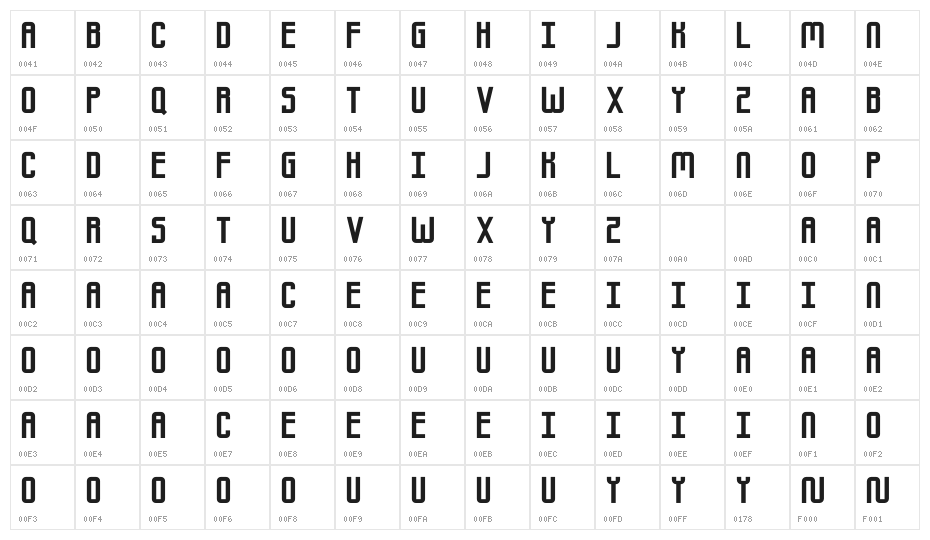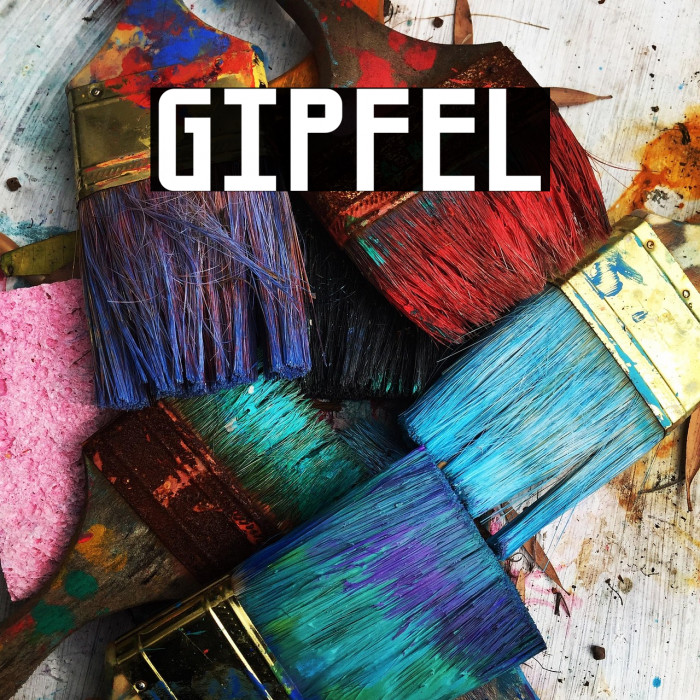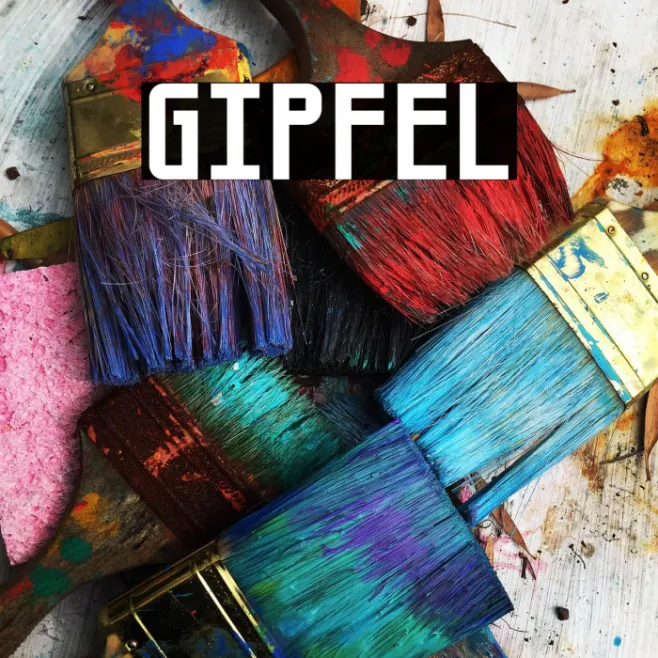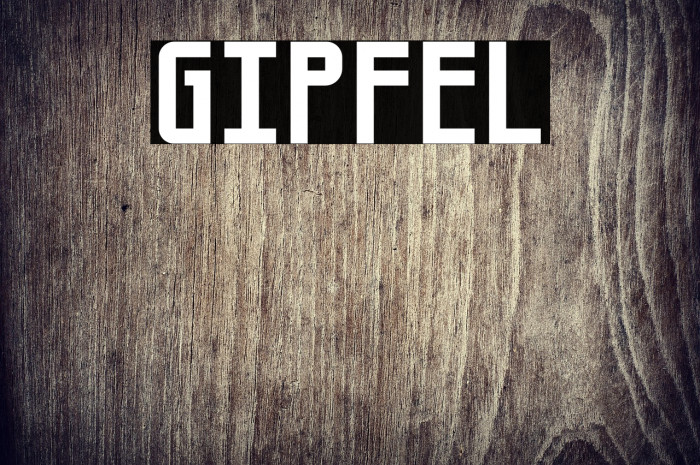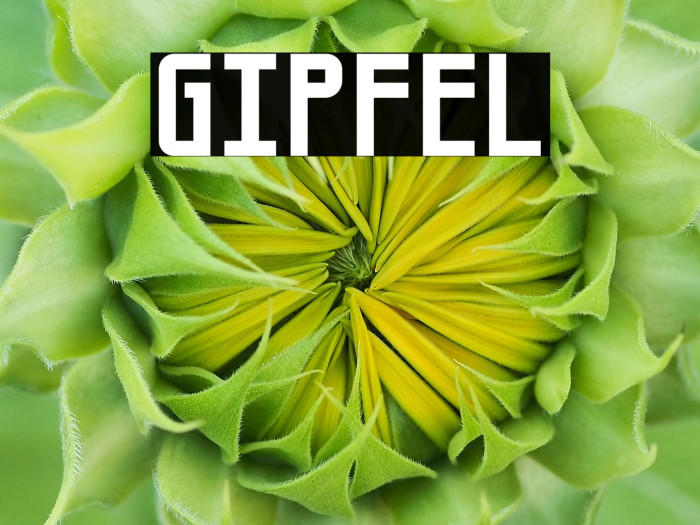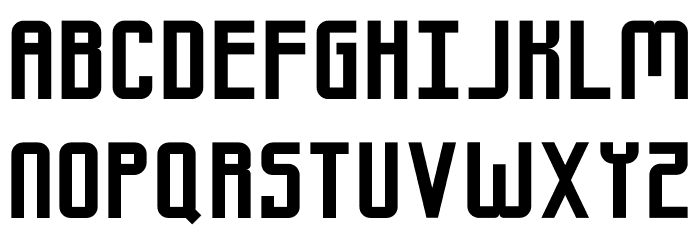
Gipfel Font
Gipfel Description
This font features a bold, geometric design with a modern aesthetic. The uppercase letters are characterized by their uniform stroke width and sharp angles, giving them a strong, industrial feel. The characters are slightly condensed, enhancing their compact appearance. The font lacks any decorative elements, focusing on a clean and straightforward presentation. It is well-suited for creating impactful headlines and titles, where clarity and strength are essential. The absence of lowercase letters and special characters suggests a focus on simplicity and directness.
| Proposed Projects | Ideal for branding, signage, posters, and any project requiring a strong, modern typeface. |